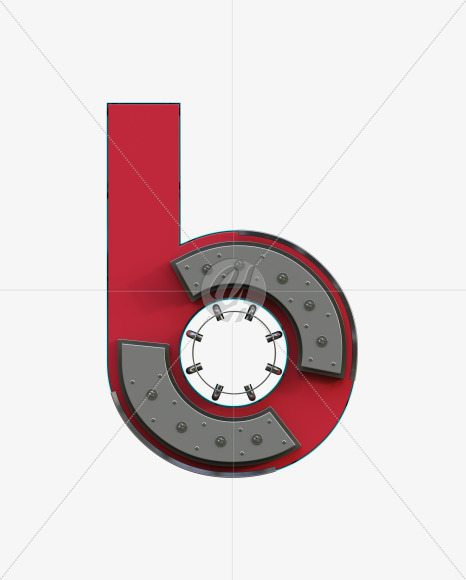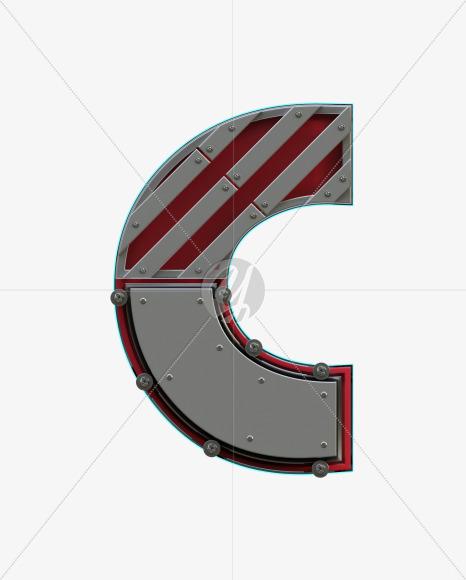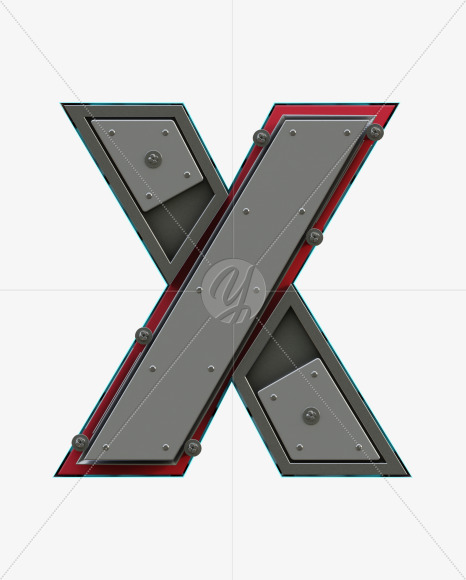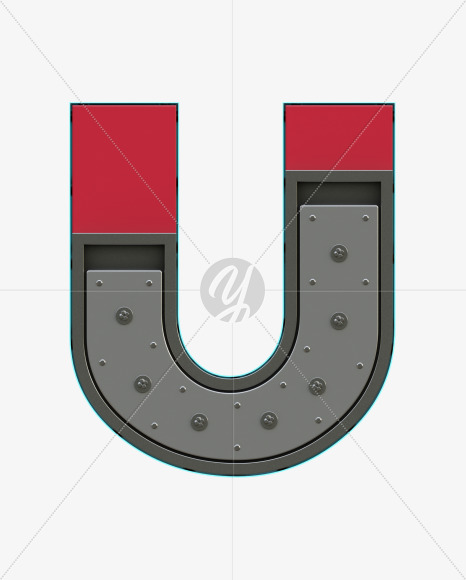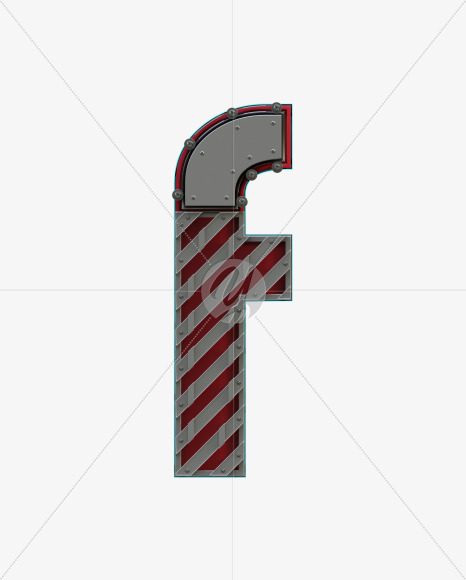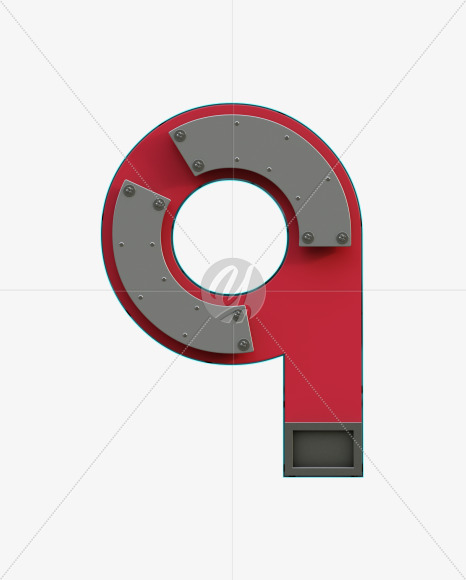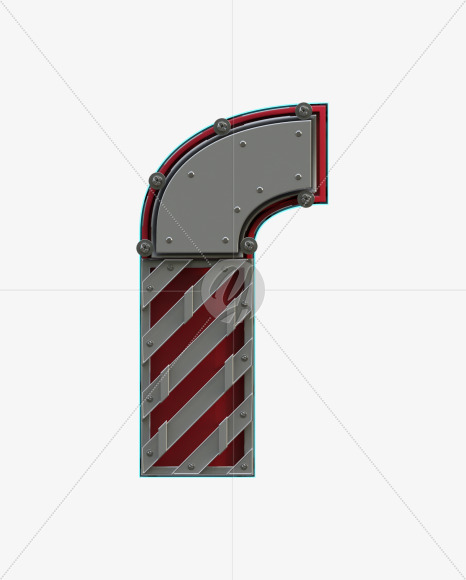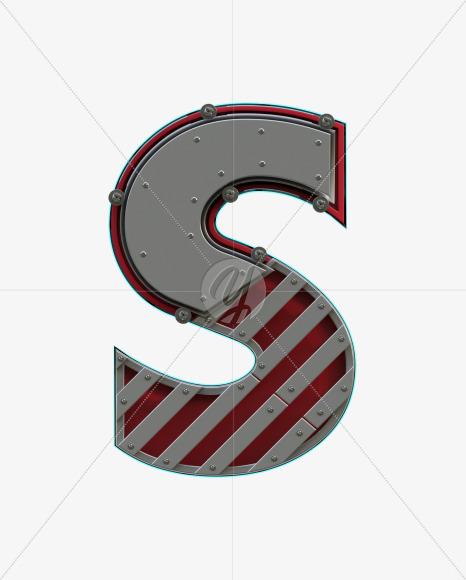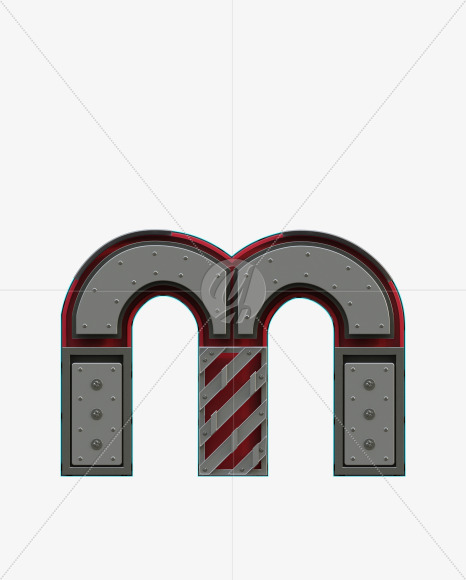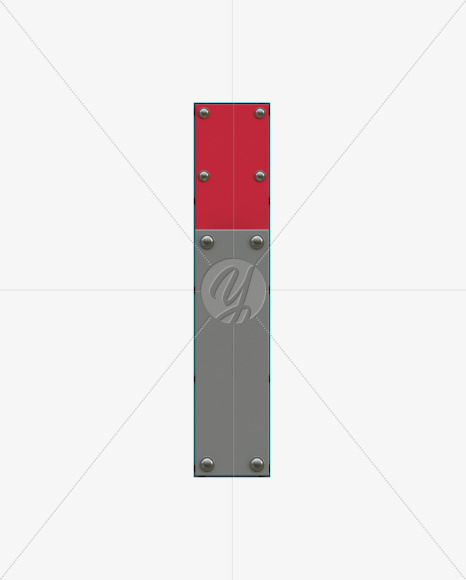
Hi-res & realistic 3D futuristic & geometric lettering renders (1500×2500 pix – but letter size is little bit smaller). Great for your headers, posters, advertisments – any web or print projects.